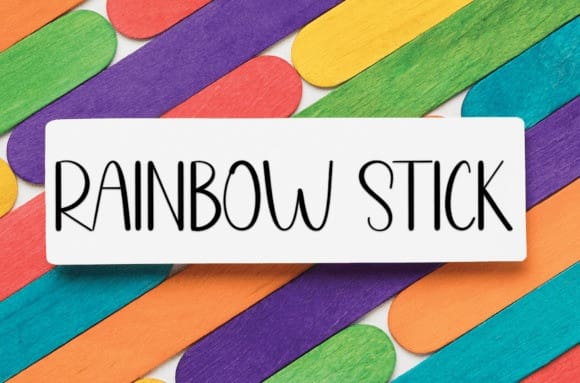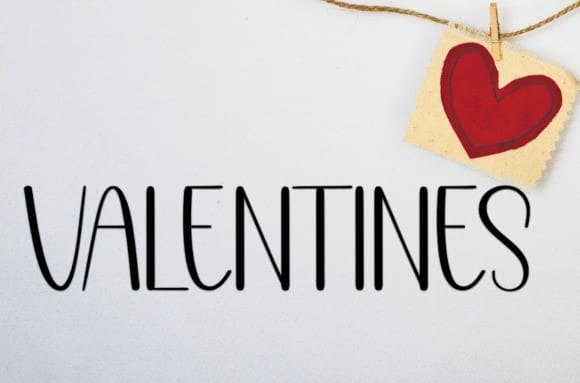
Singing Clown Font
Singing Clown Font is a sweet and friendly handwritten font. Fun and relaxed, this font is ideal for writing wedding invitations, cards, or any other design that might need a joyful touch!